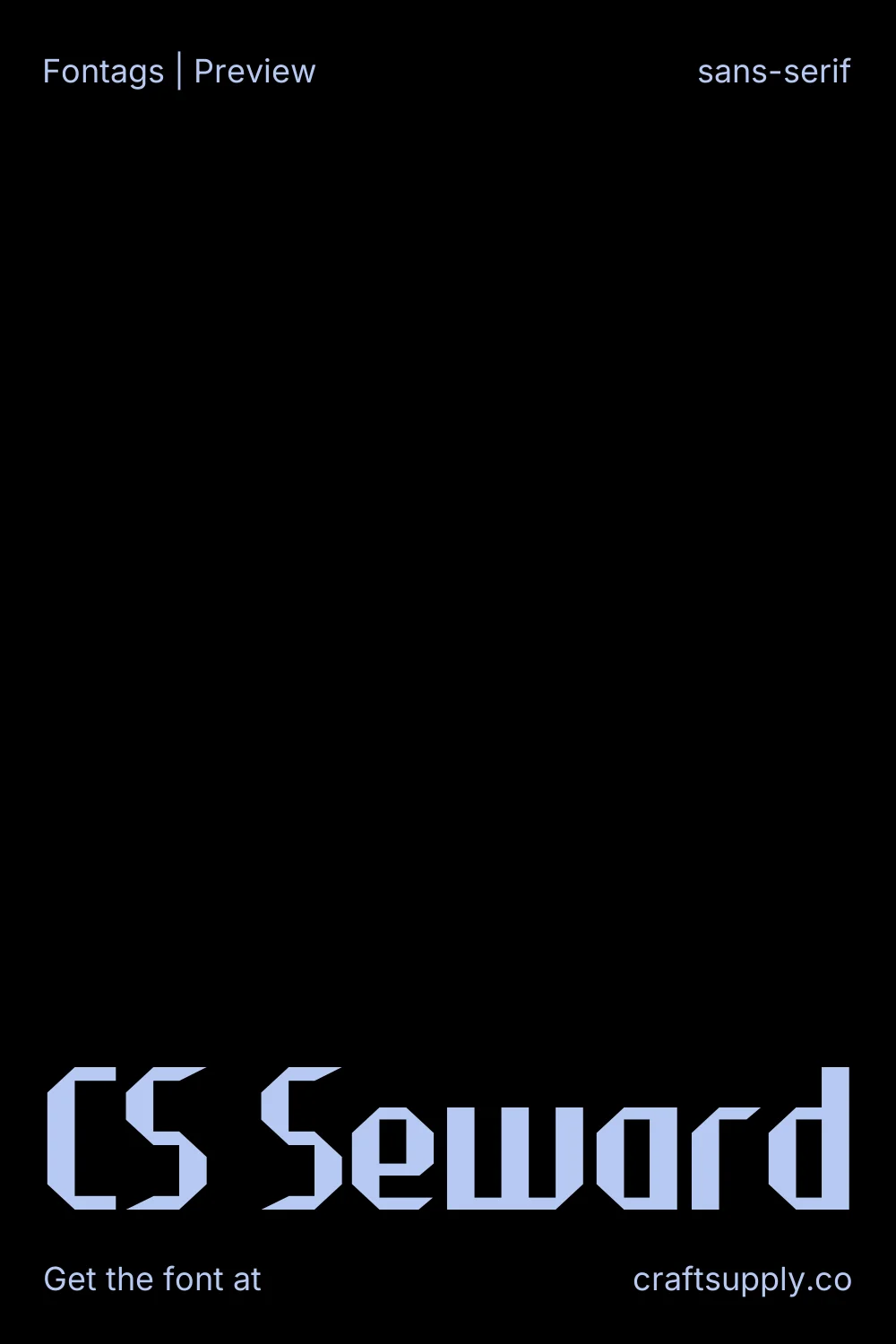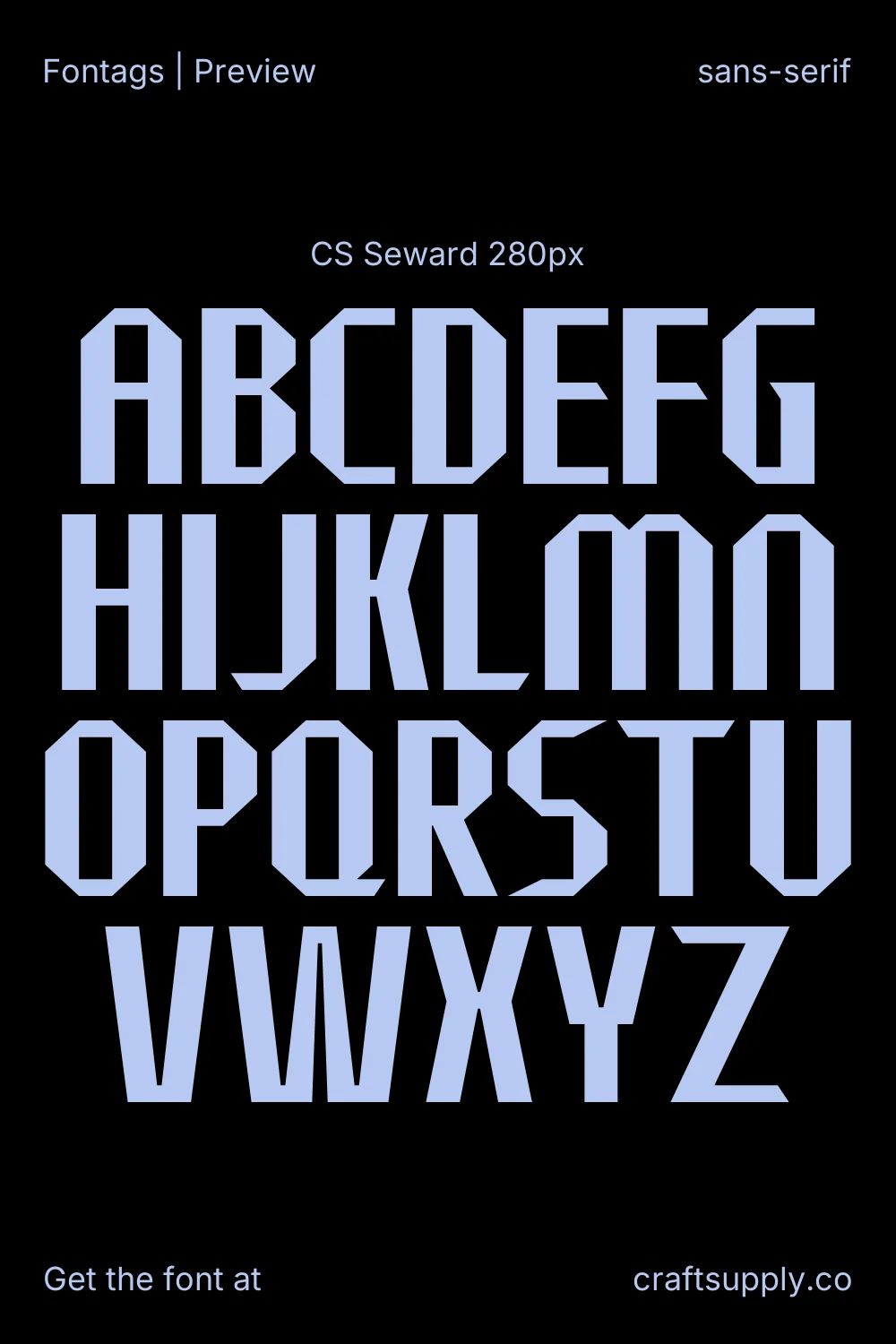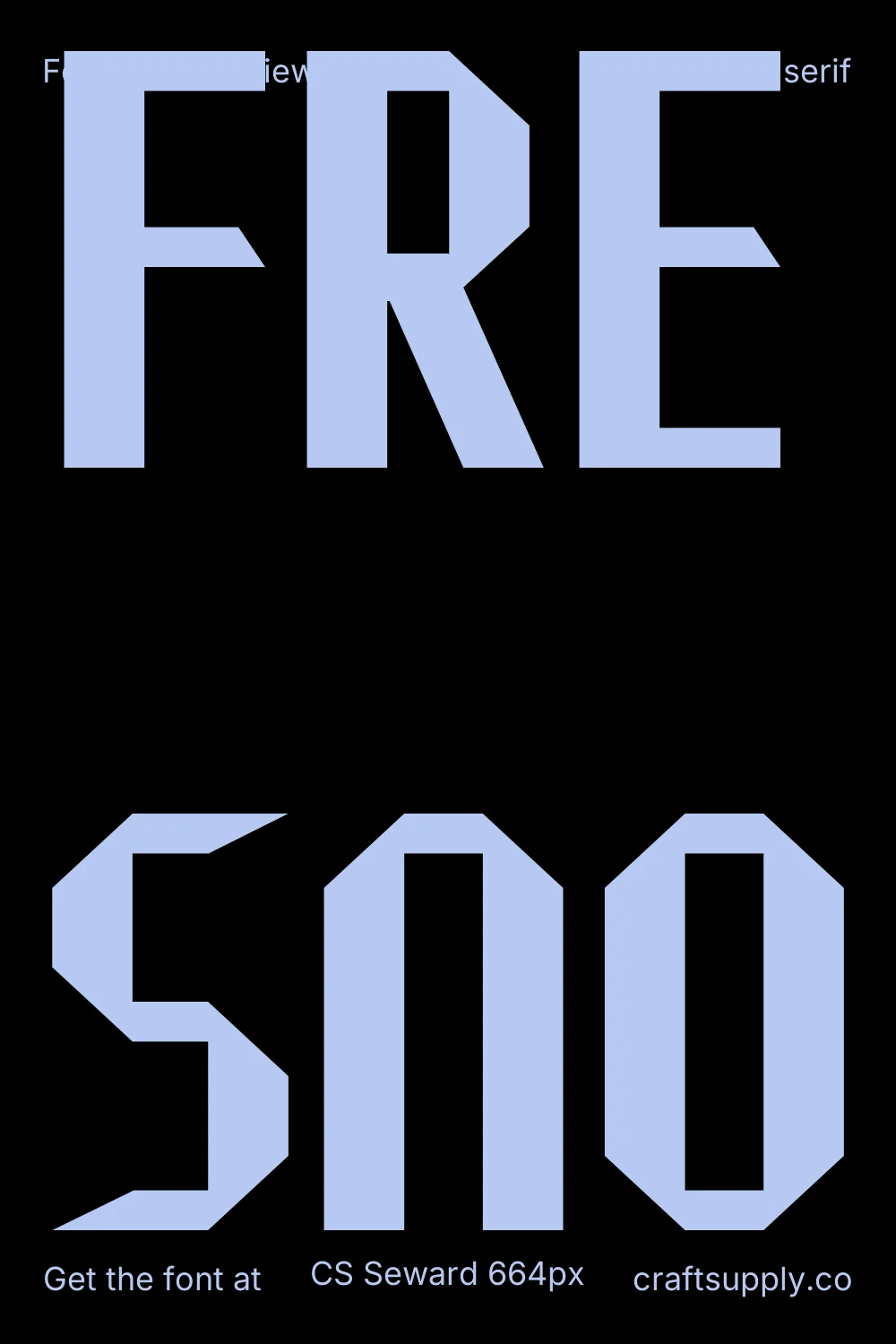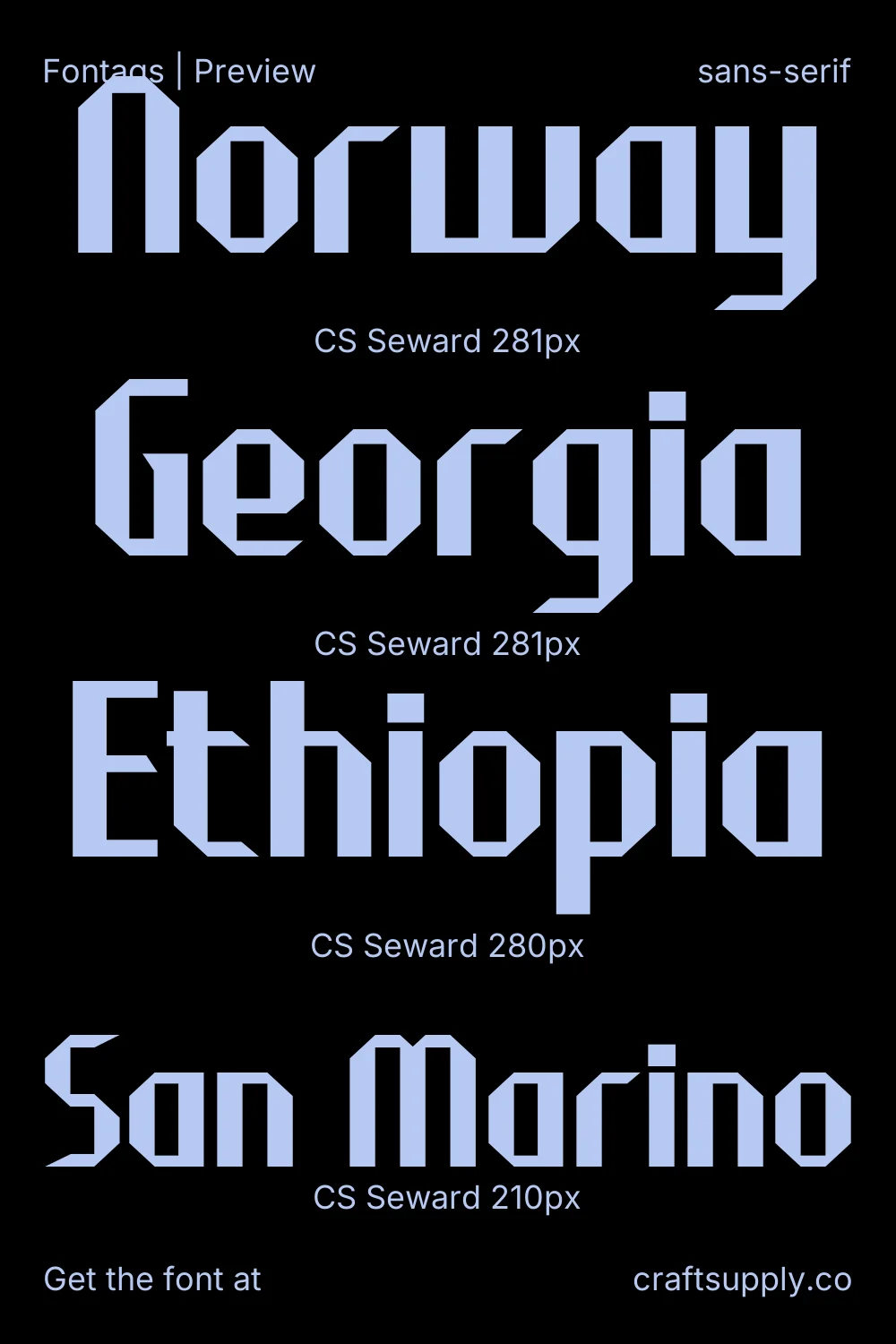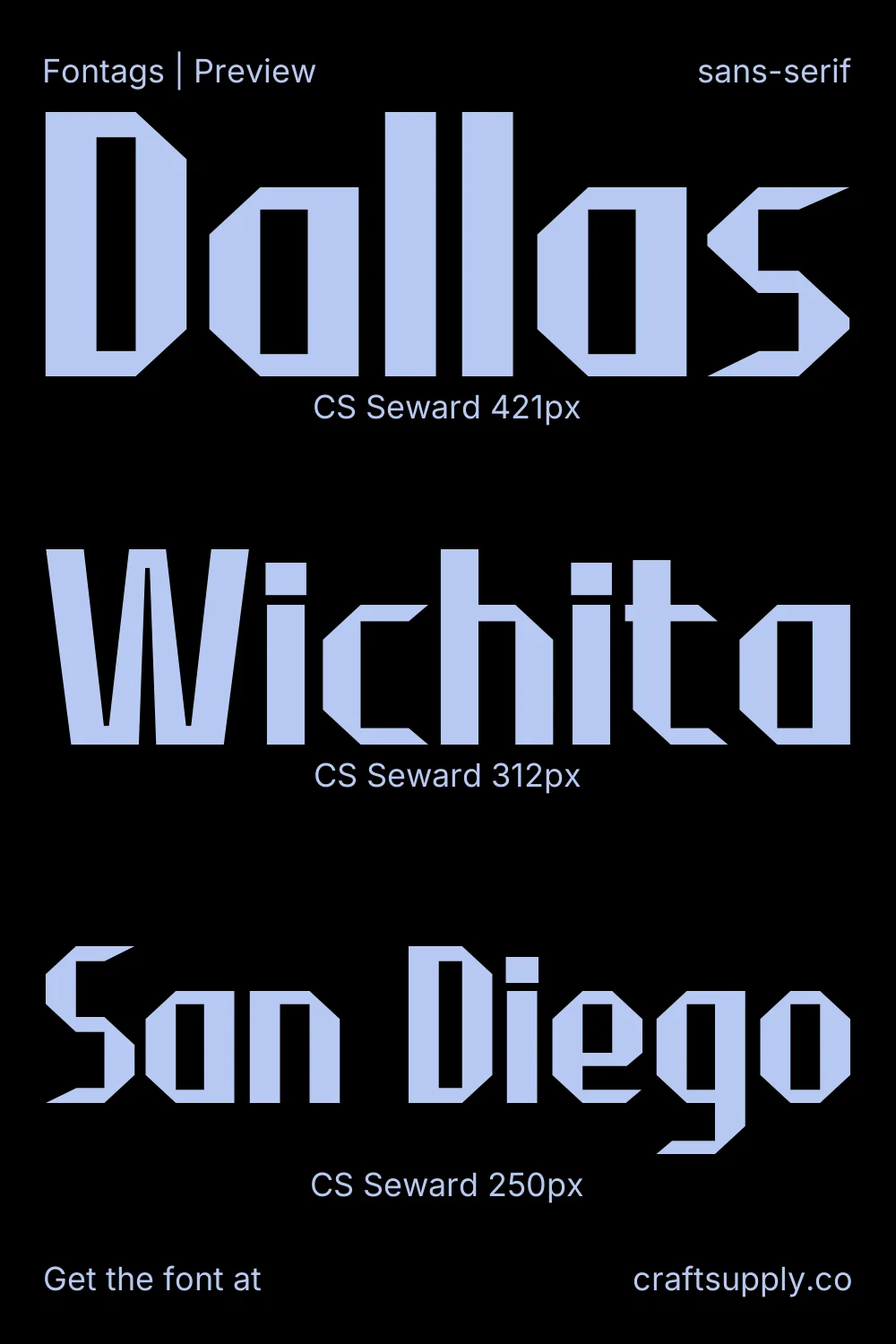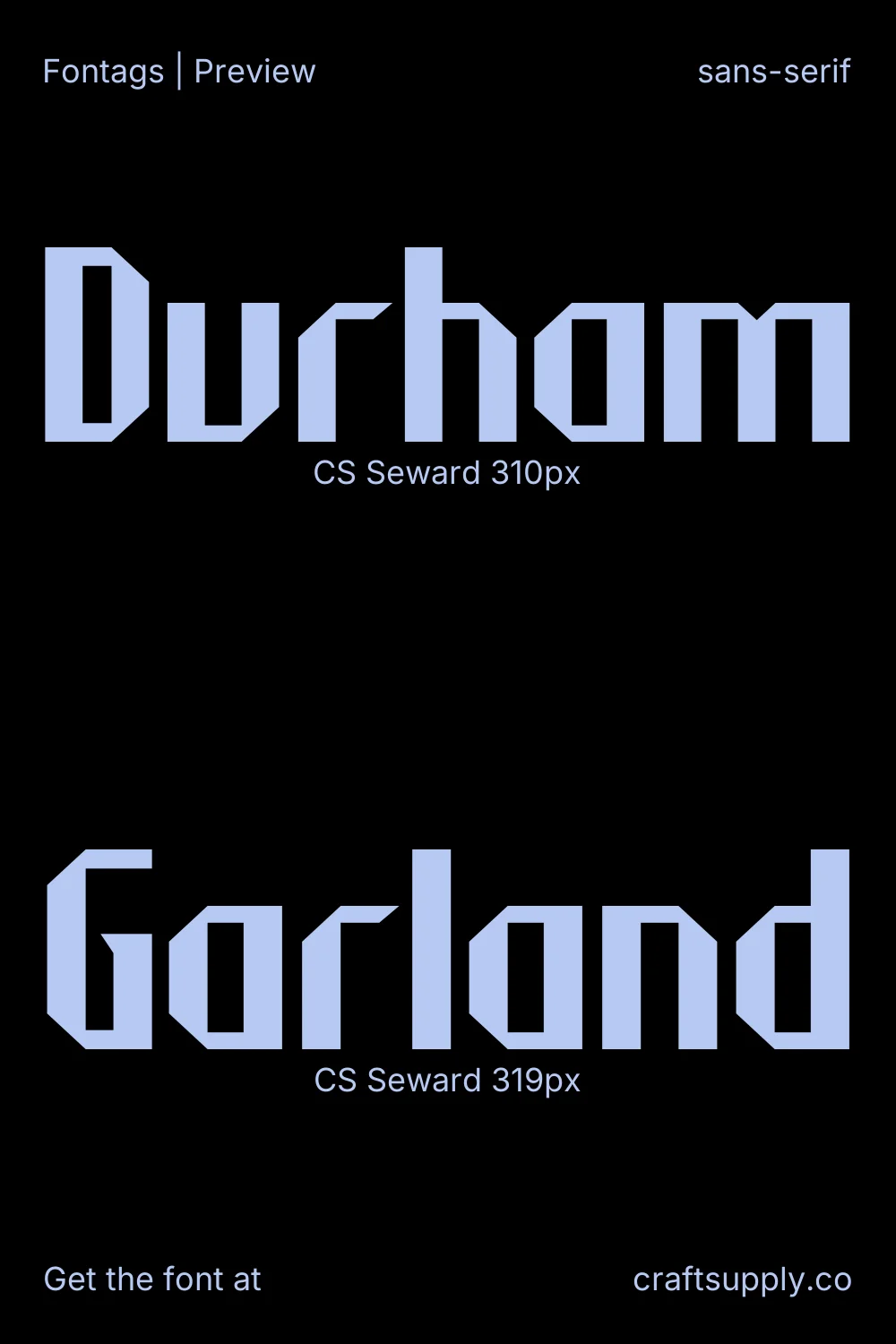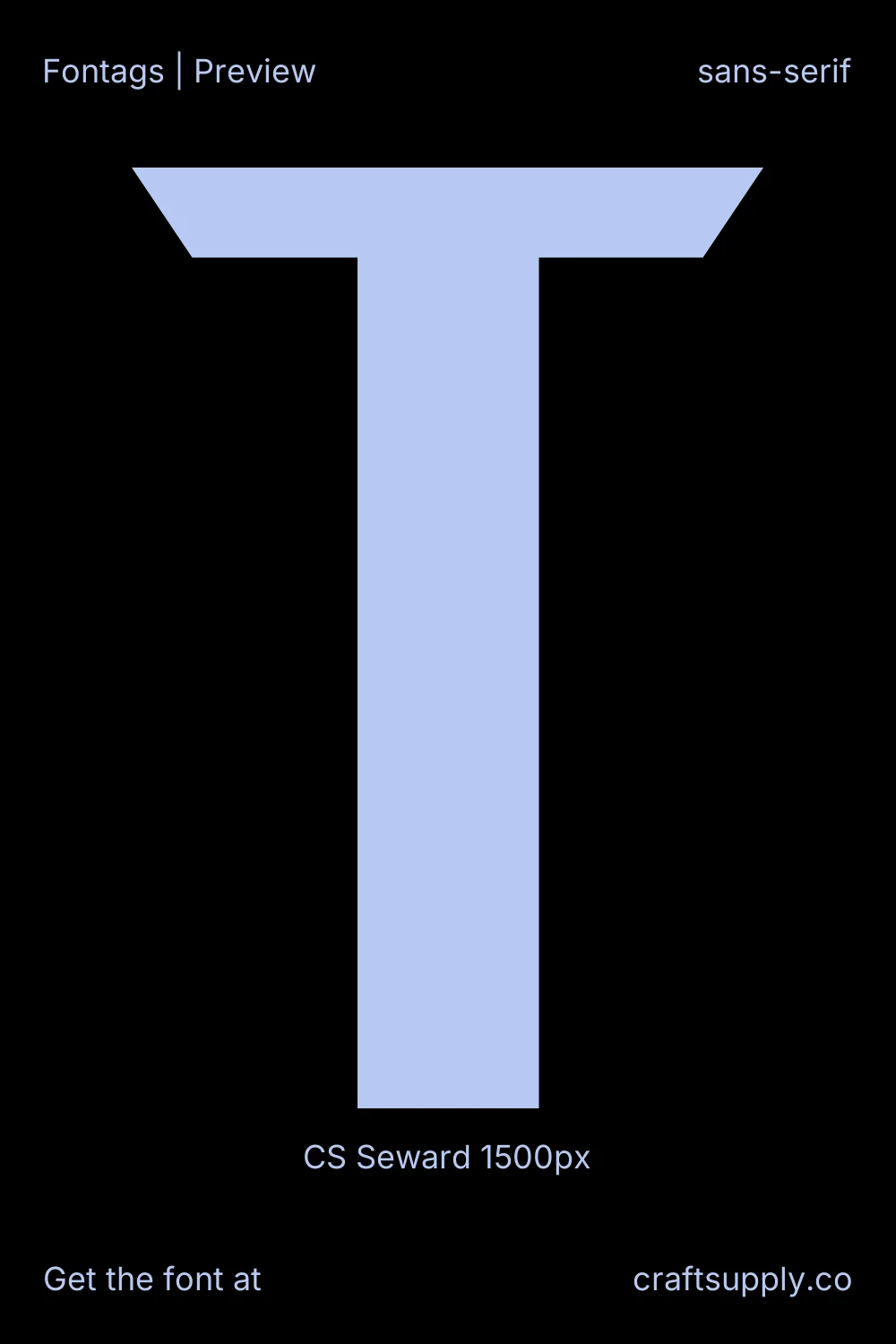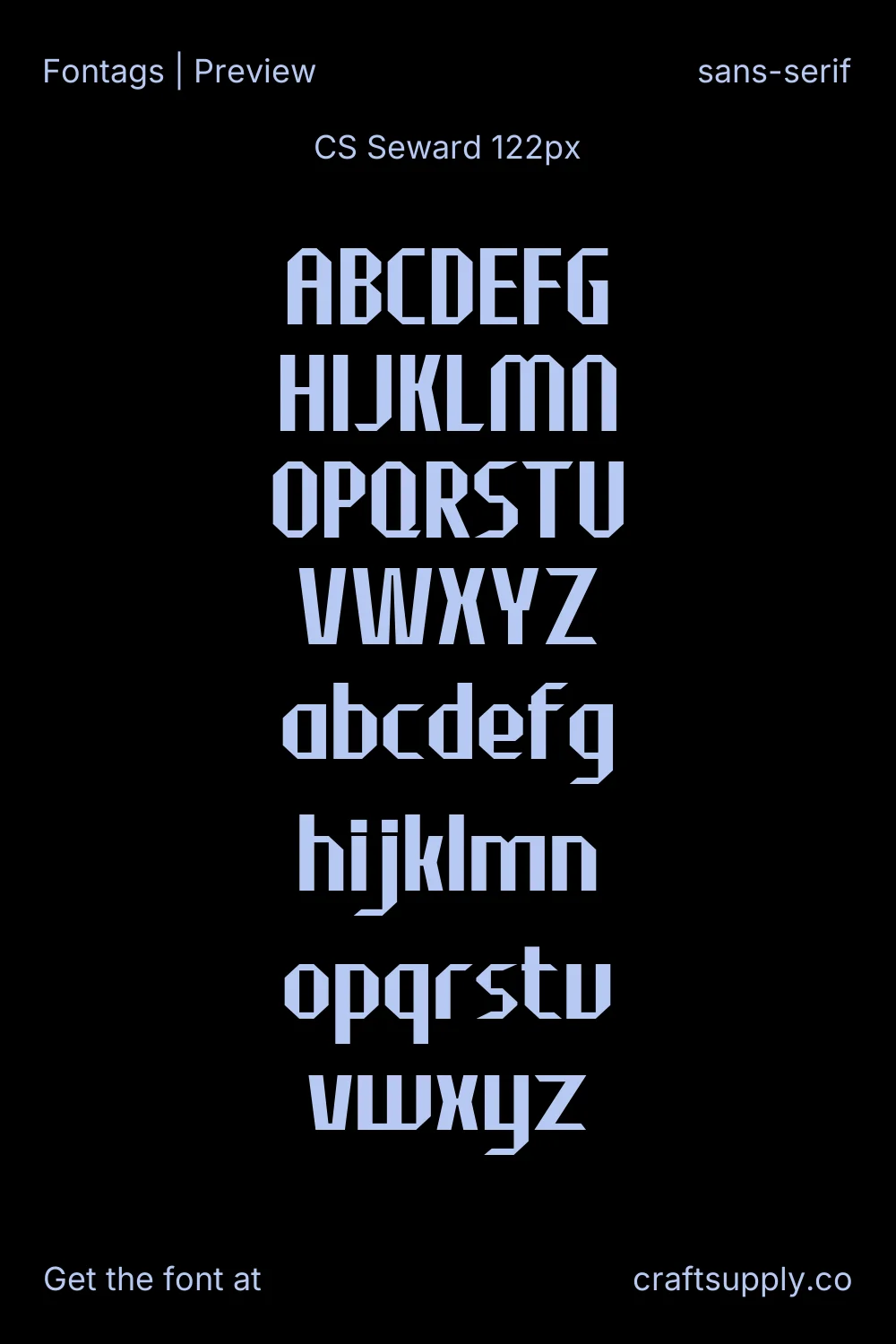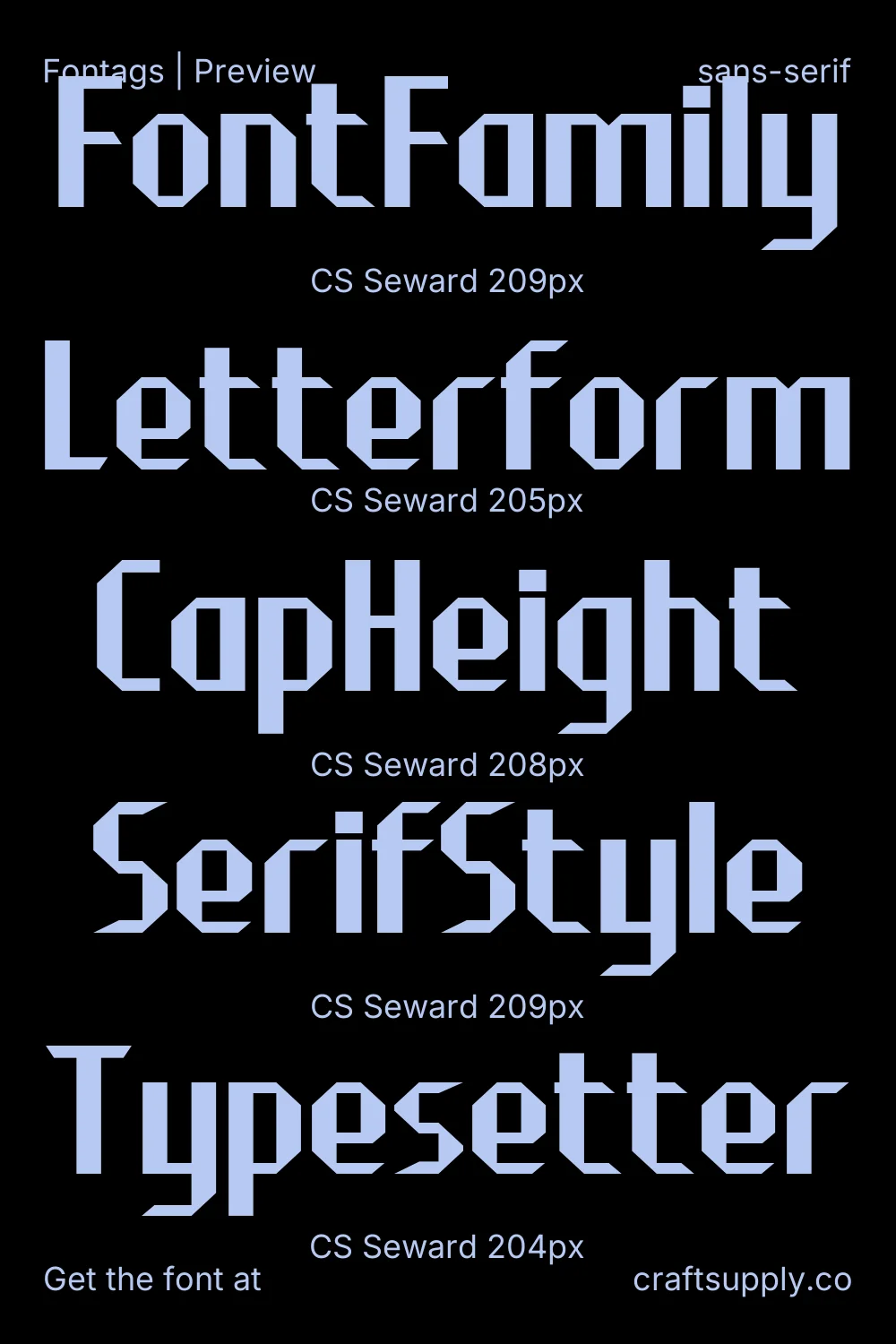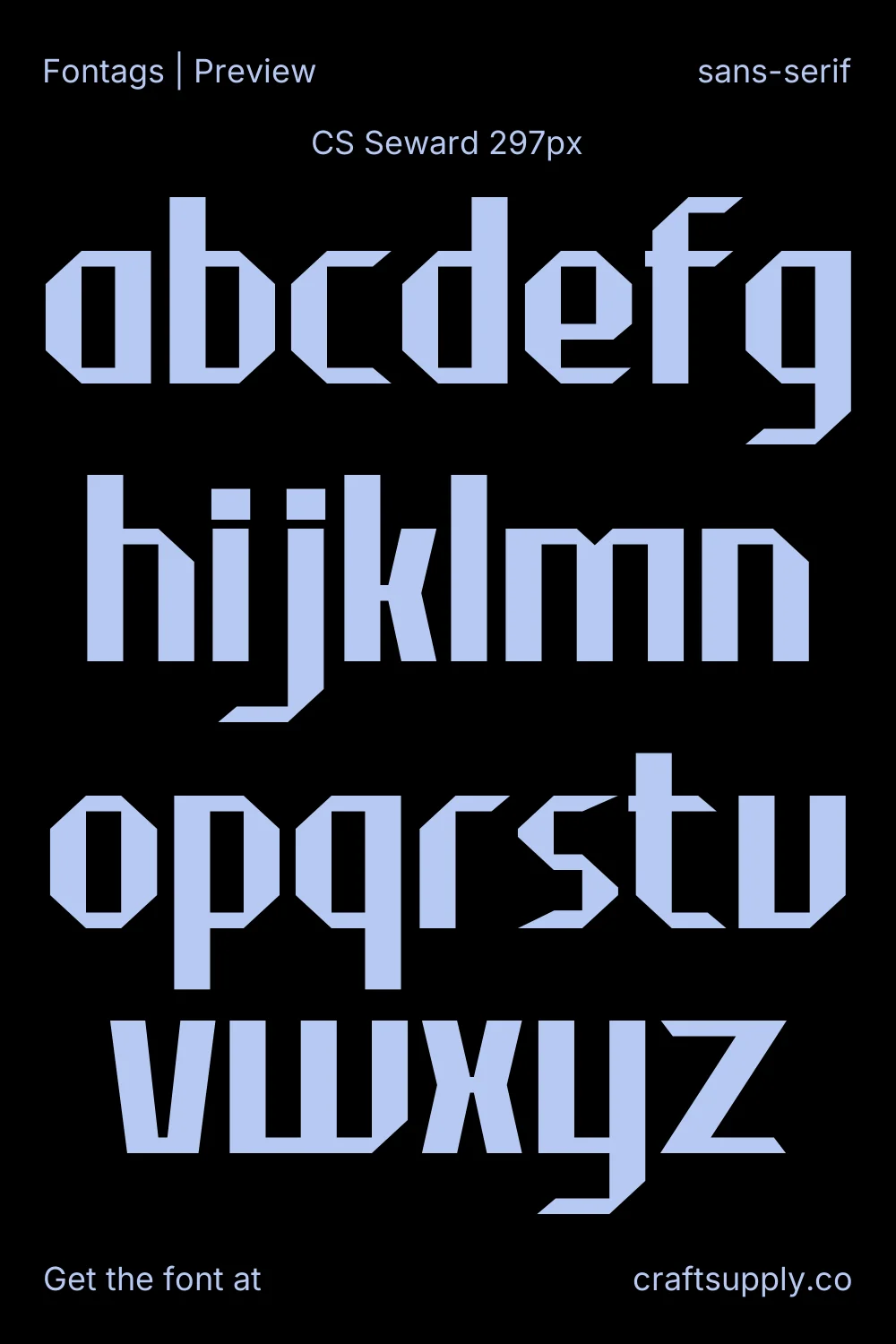
CS Seward
CS Seward is a rugged industrial display typeface with heavy, bold letterforms and a commanding masculine presence. Its solid construction and raw structural attitude make it perfect for branding, packaging, posters, and impactful headlines that demand strength and authenticity.